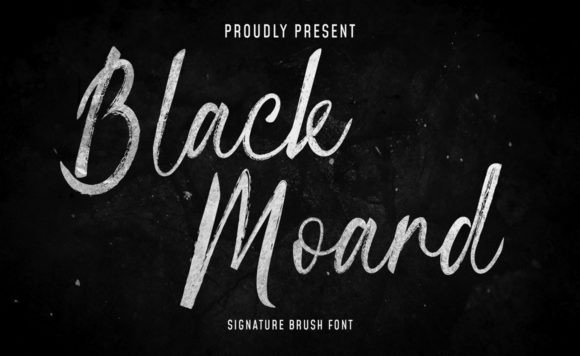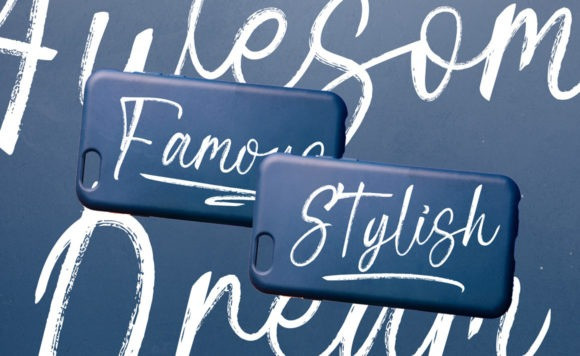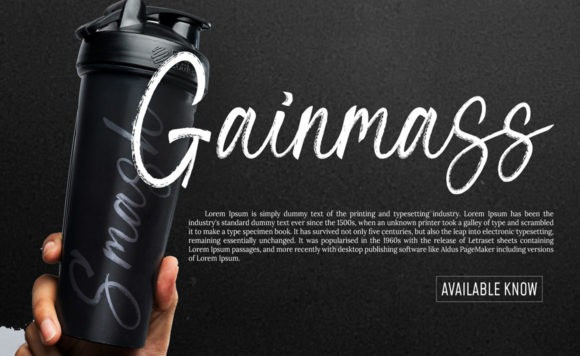
Blackmoard Font
Blackmoard is a beautiful and light handwritten font with a unique feel and a stunning impact. It will add a luxury spark to any design project that you wish to create! Blackmoard is PUA encoded which means you can access all of the glyphs and swashes with ease!